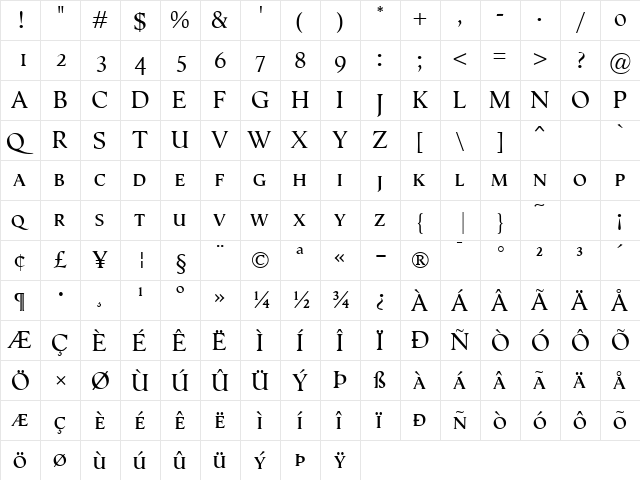
Semper SmallCaps Regular
Design Context for Semper SmallCaps Typeface
Semper SmallCaps takes a measured approach to typography — its balanced proportions and neutral character make it a reliable workhorse for both digital and print work.